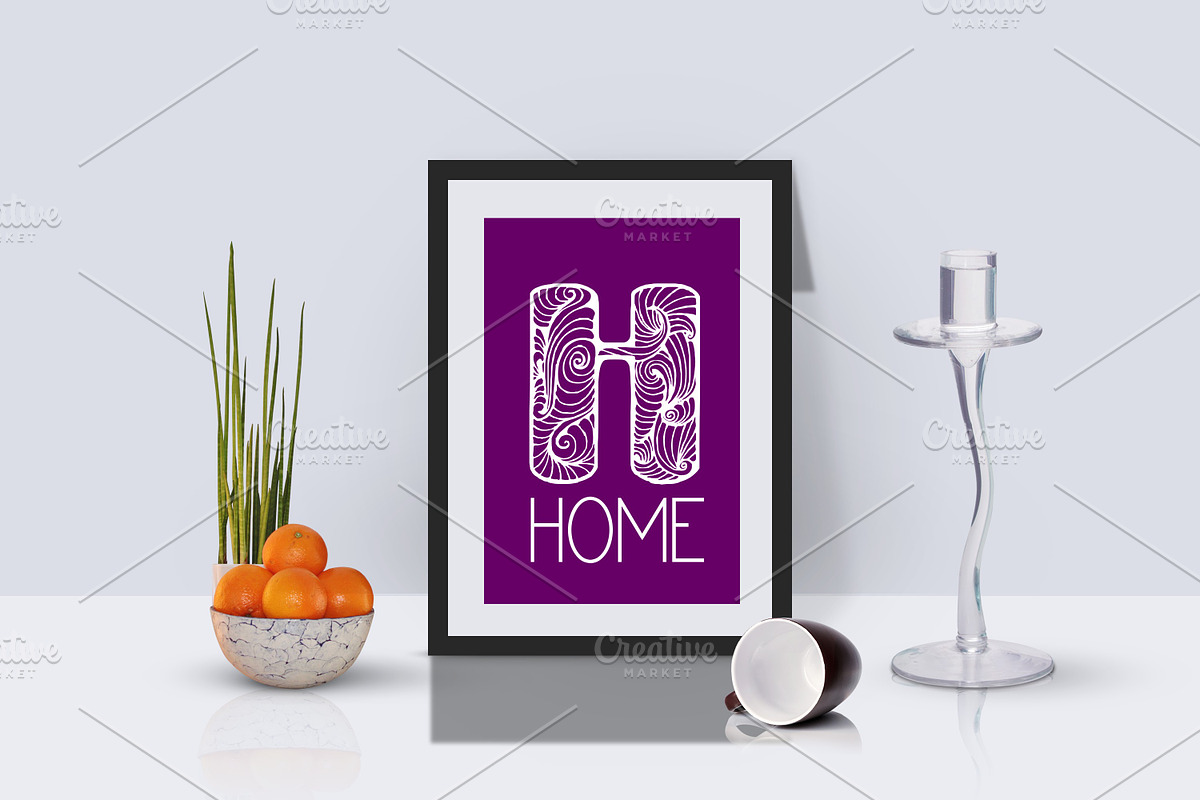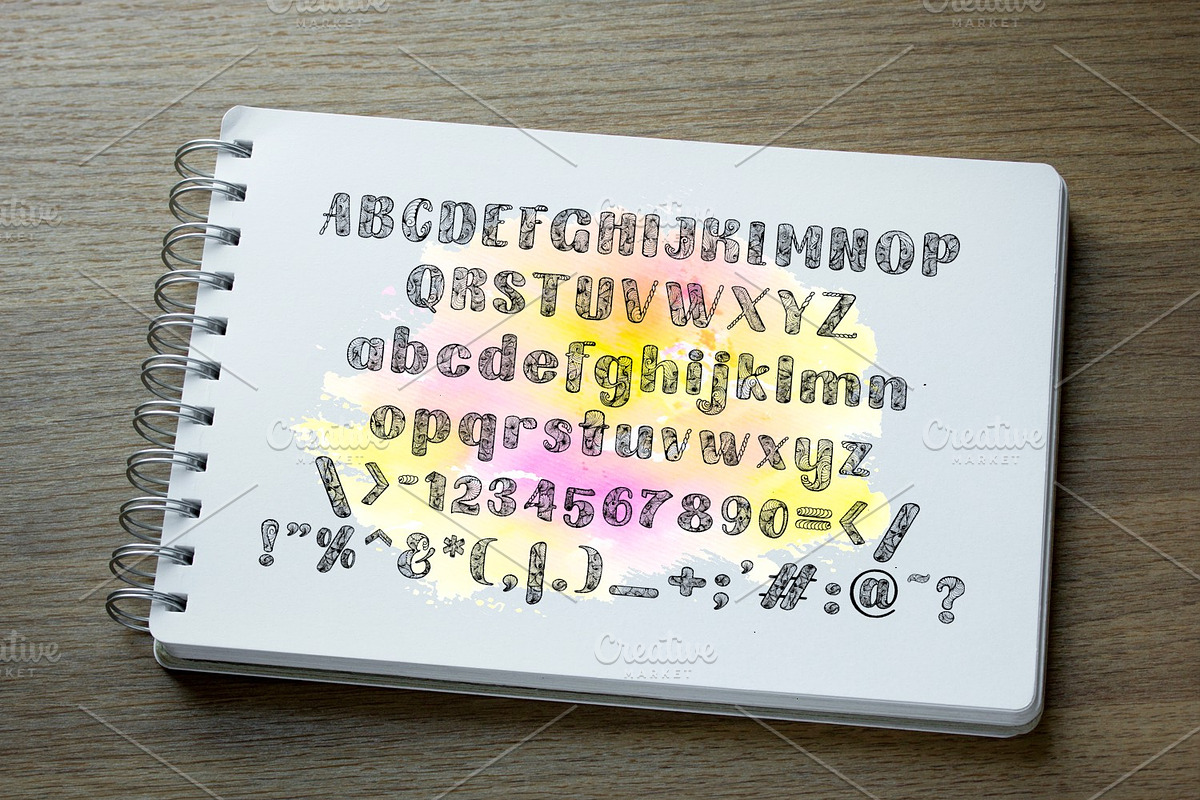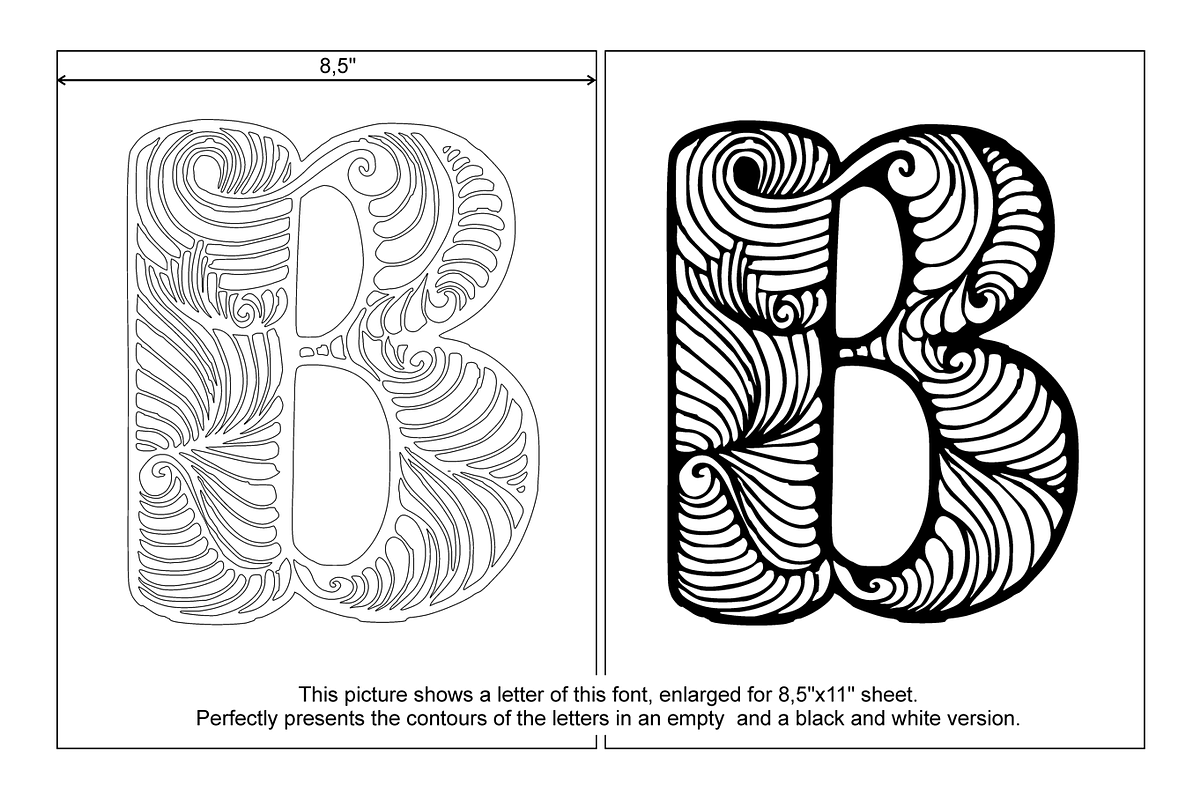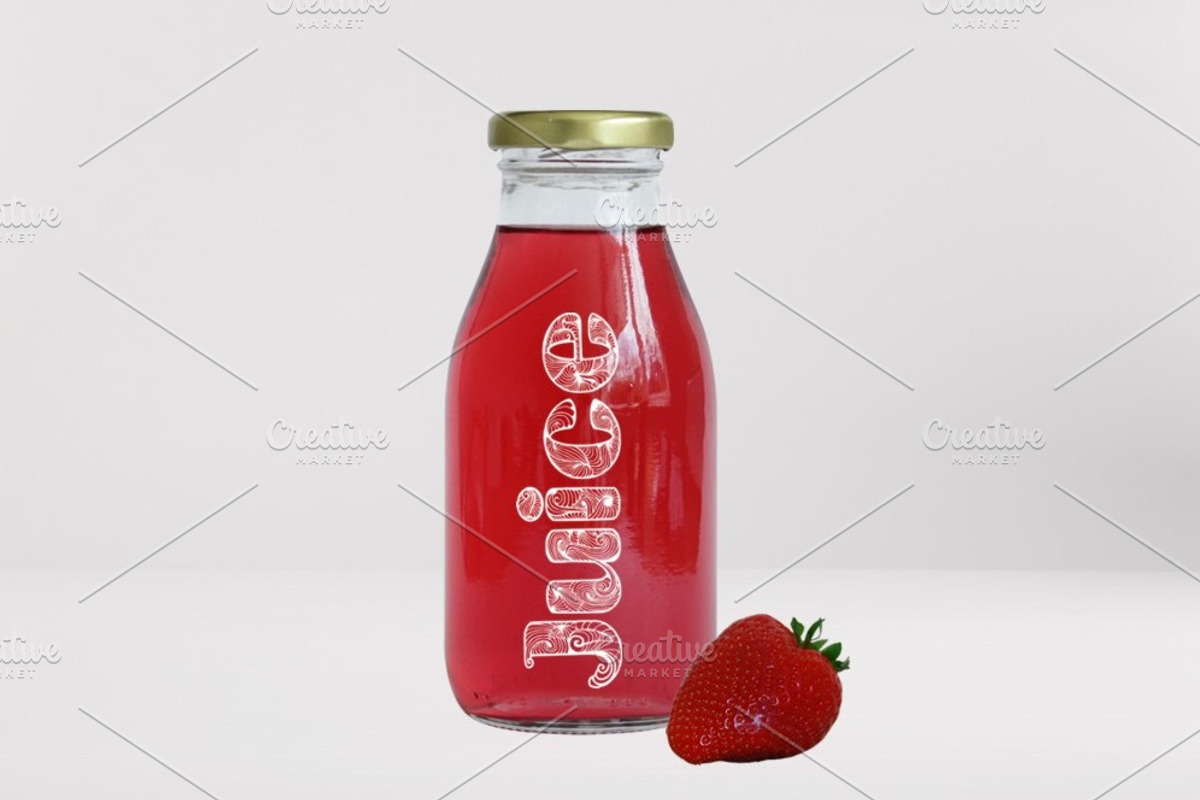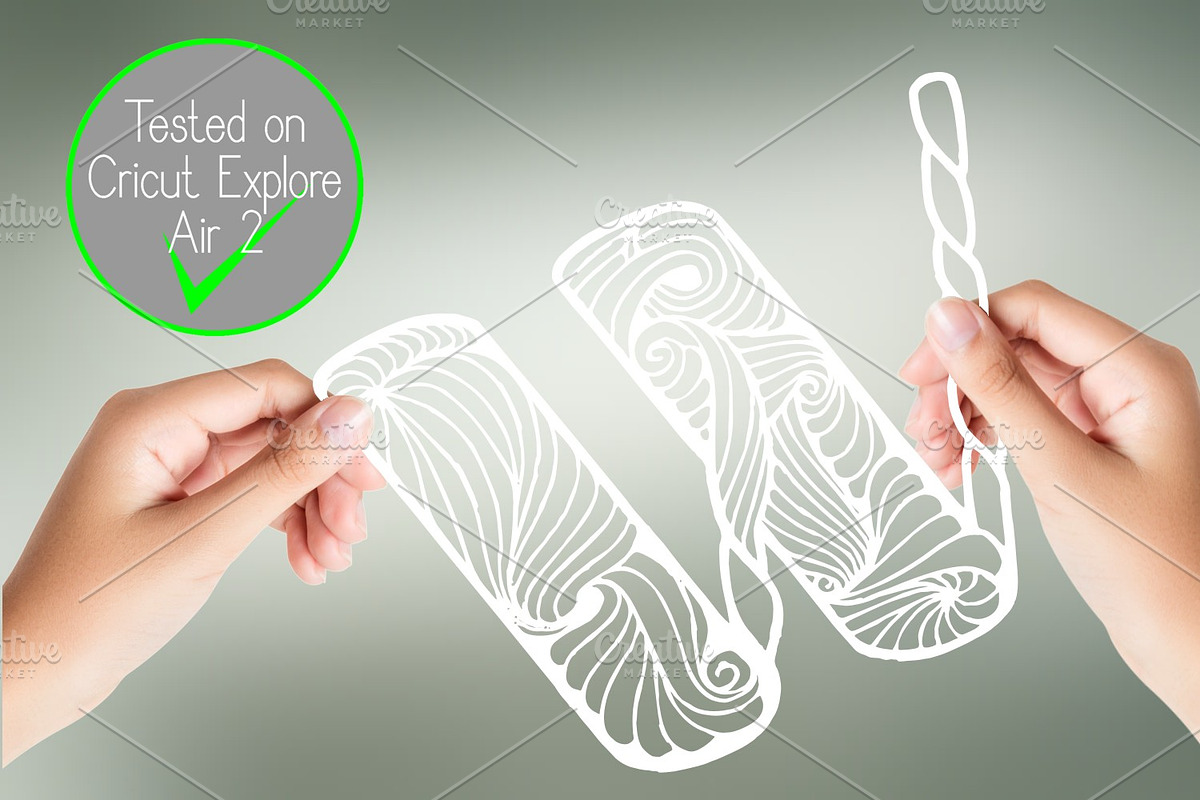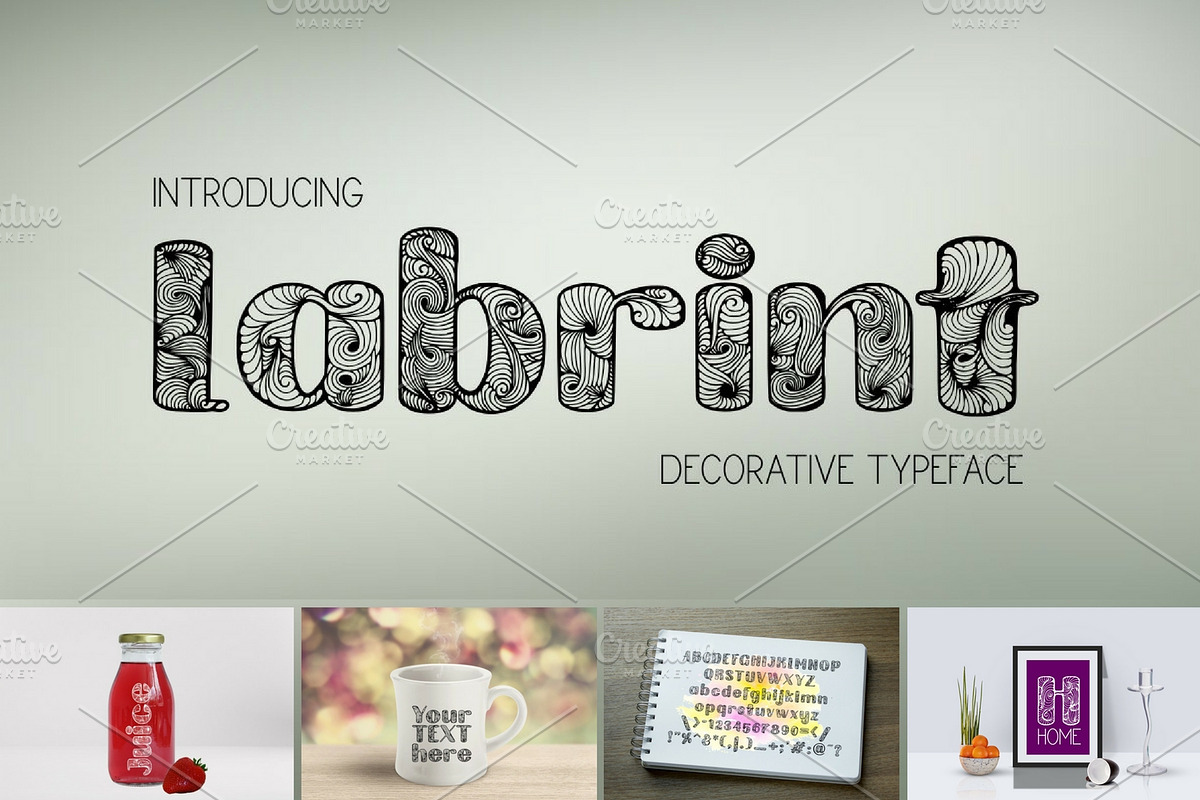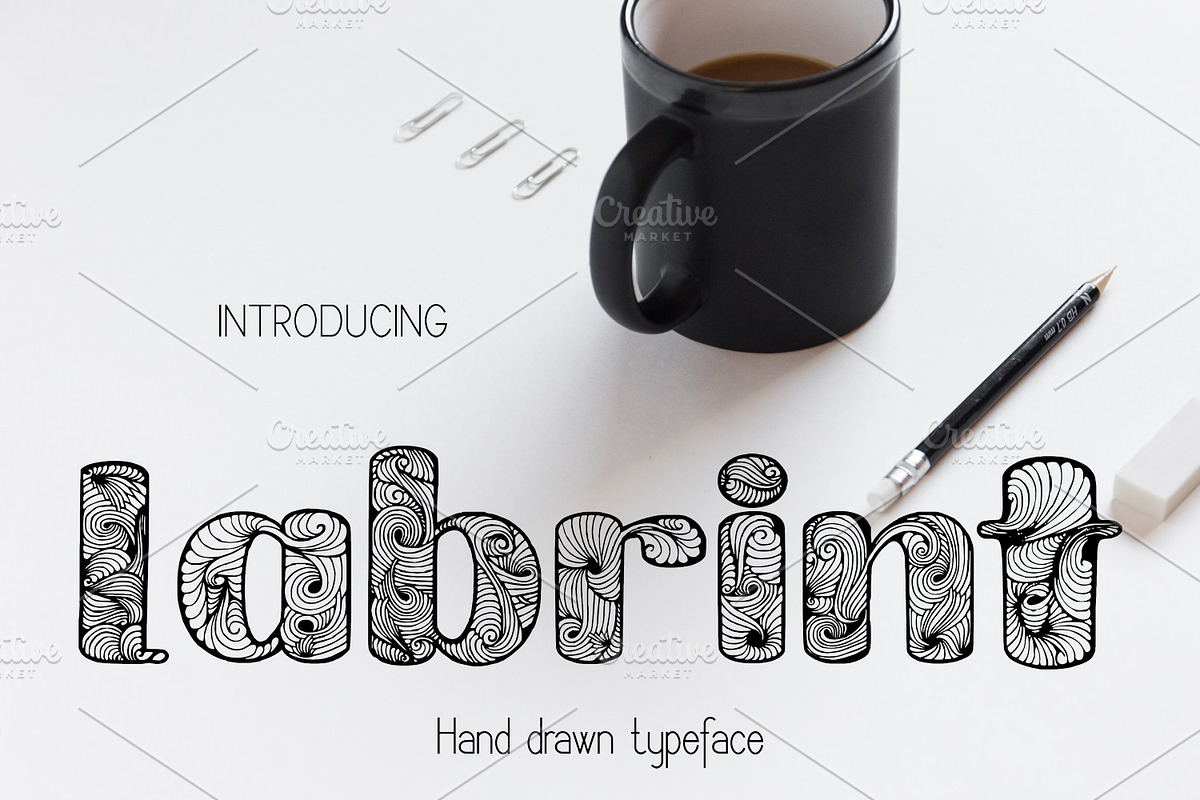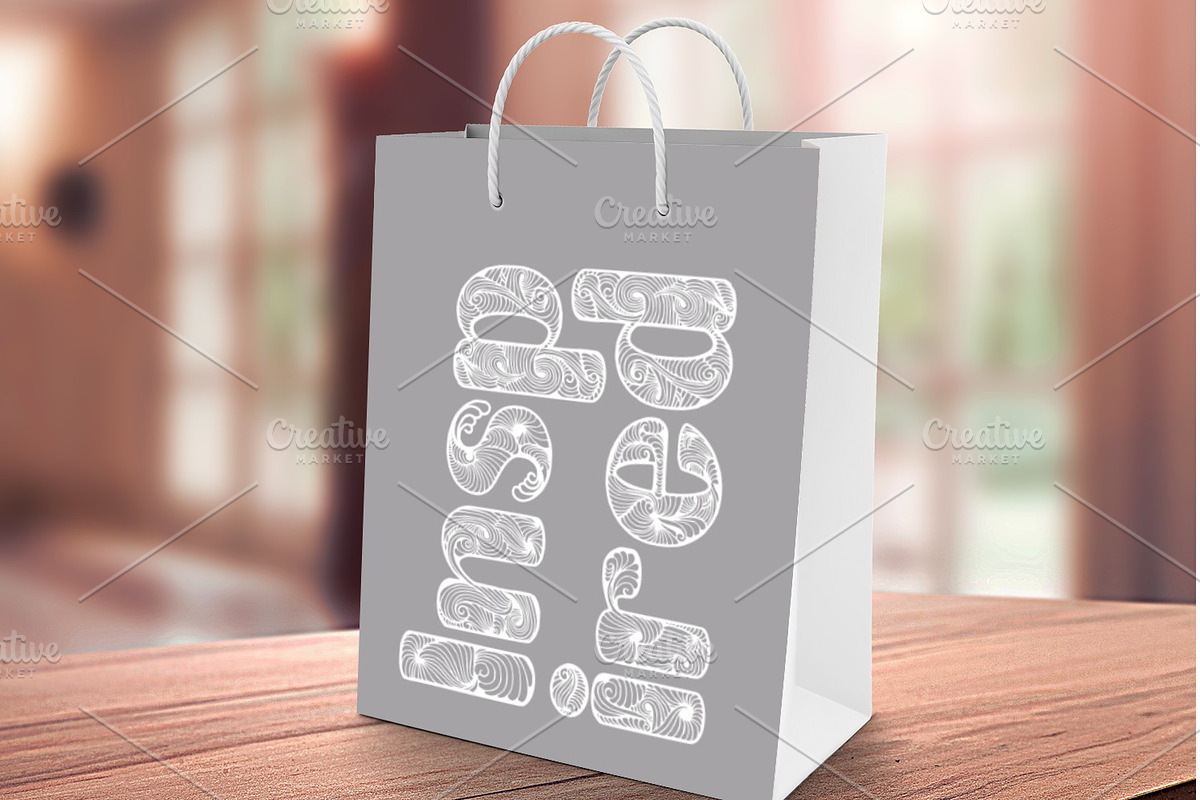
Labrint font
Labrint font by Digital Typeface Studio is a font selected for branding, posters, packaging, typography.
Why Labrint font is worth a look
Labrint font by Digital Typeface Studio fits naturally into Branding, posters, packaging, typography.